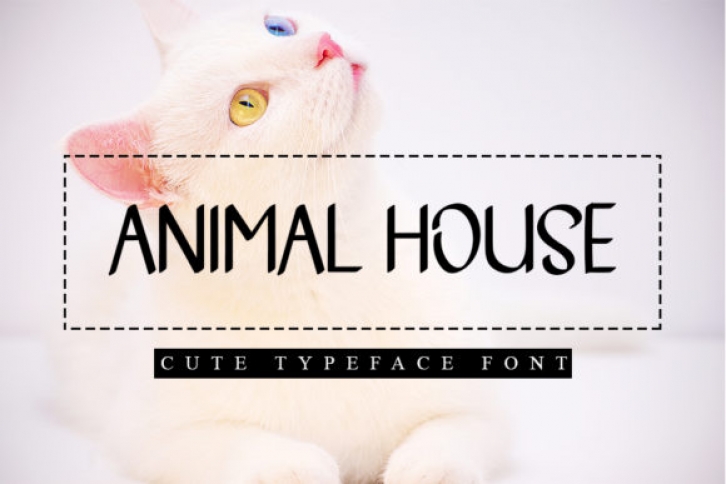
Animal House is a casual and simple handwritten font. Whether you’re looking for fonts for Instagram or calligraphy scripts for DIY projects, this font will turn any creative idea into a true piece of art!